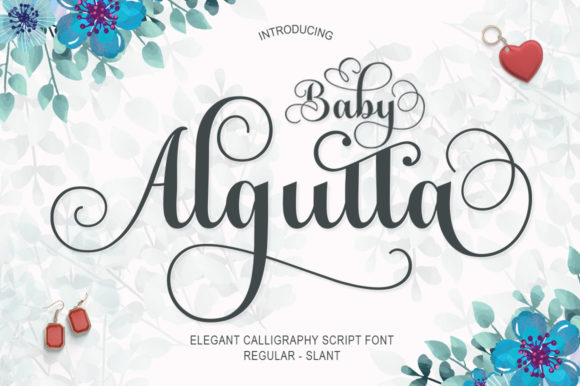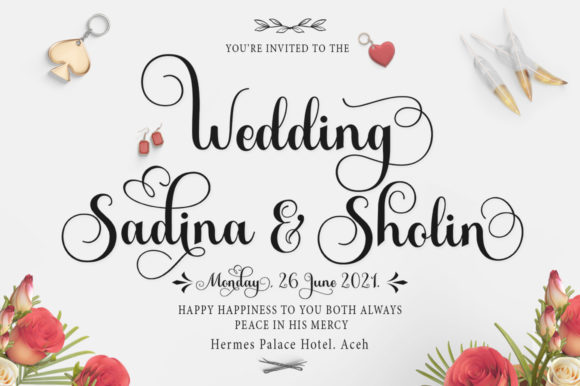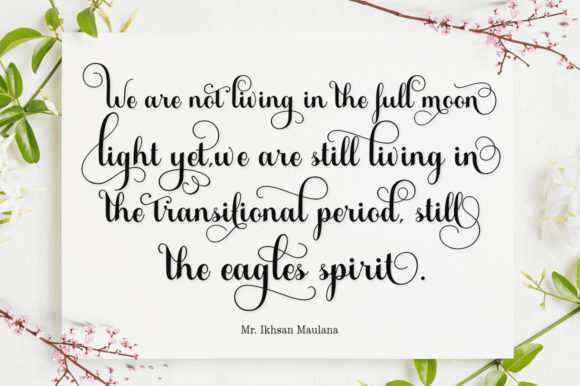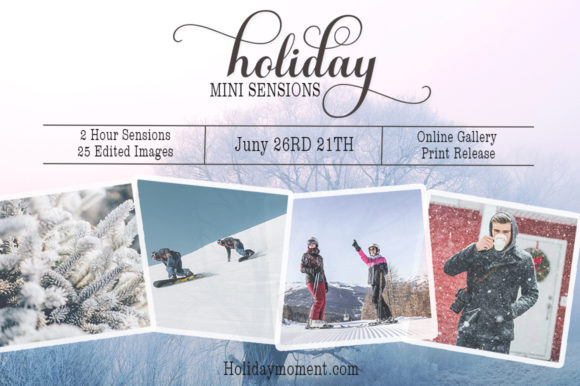
Baby Algutta Font: Elegant Calligraphy for Wedding & Branding Design
About the Baby Algutta Font
Crafted with precision, the Baby Algutta Font is ready to bring your ideas to life. Baby Algutta is a modern and romantic handwritten font. Featuring all round and sweet characters, this font will look stunning on any poster flyer or print. Baby Algutta is PUA encoded which means you can access all of the glyphs and swashes with ease!
Baby Algutta’s rounded forms and swashes make it ideal for projects needing a touch of romantic charm. It excels in headlines, short-form text on invitations or social media graphics, and branding for products targeting a feminine or whimsical audience. Avoid using it for large blocks of body text; its handwritten nature can hinder readability in longer passages.
The font’s core personality is undeniably soft and friendly, with a touch of playful elegance. This makes it perfect for wedding invitations, feminine product packaging, or branding for businesses focused on beauty, fashion, or artisanal goods.
Pair Baby Algutta with a clean sans-serif like Montserrat for a modern contrast, or a classic serif like Garamond for a more timeless feel. For a bolder look, consider pairing it with a geometric sans-serif such as Futura. These pairings will provide necessary visual balance and improve overall readability.
Baby Algutta Font Usage Examples
Baby Algutta Font Example